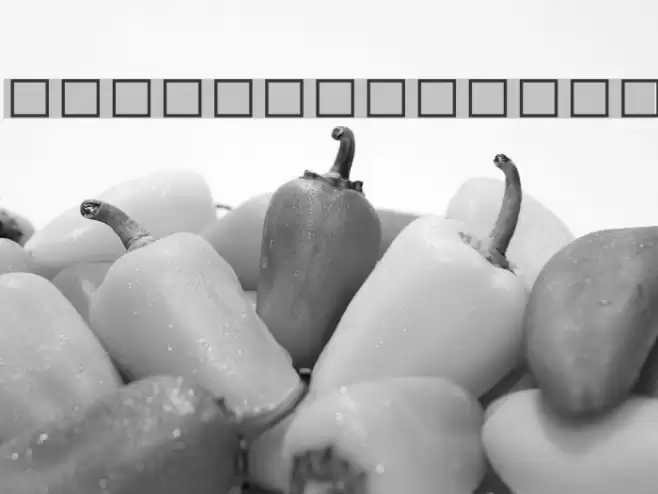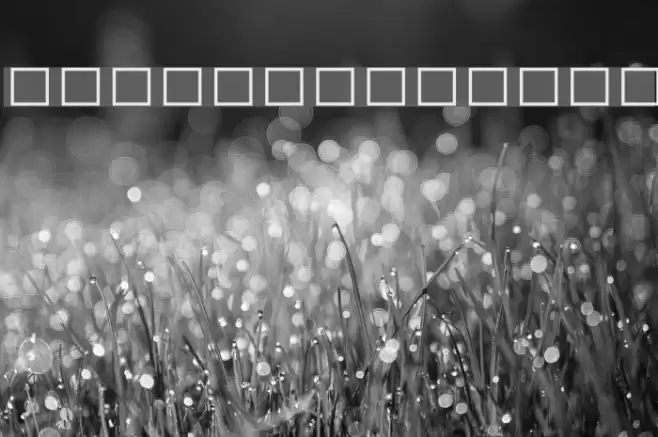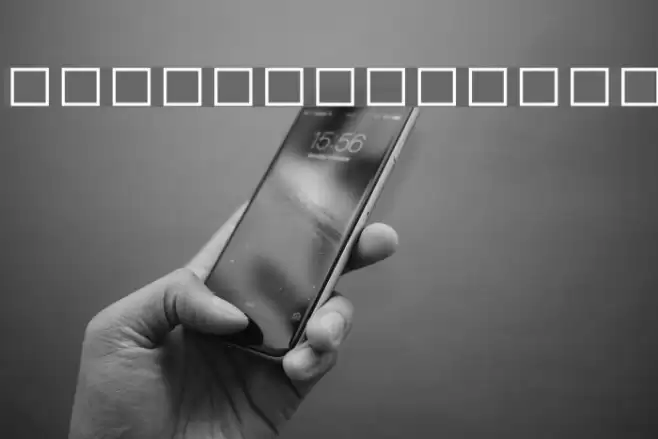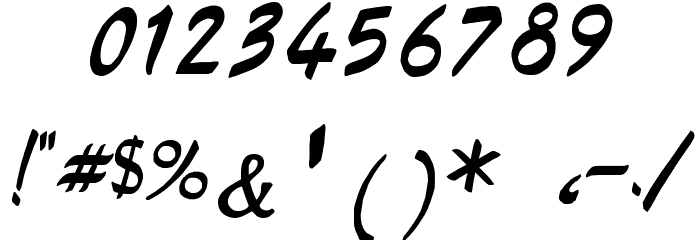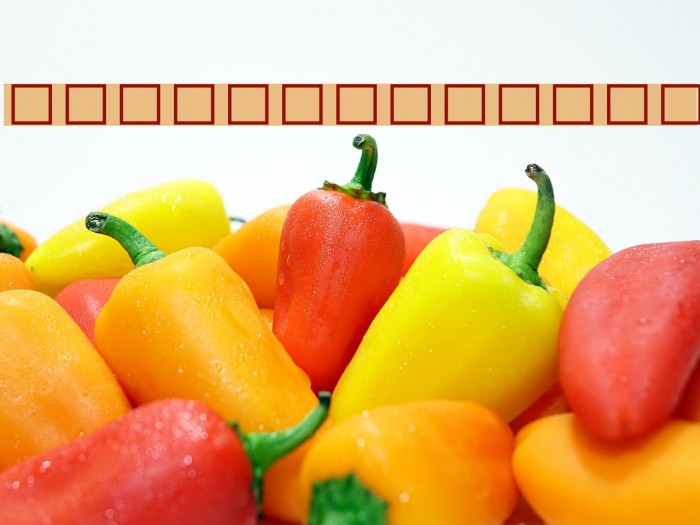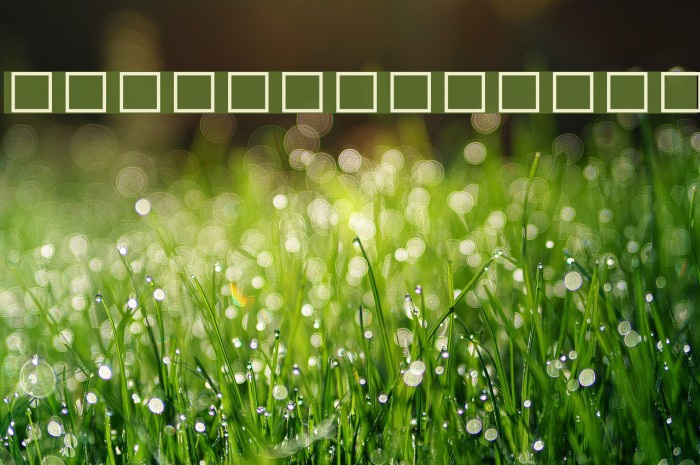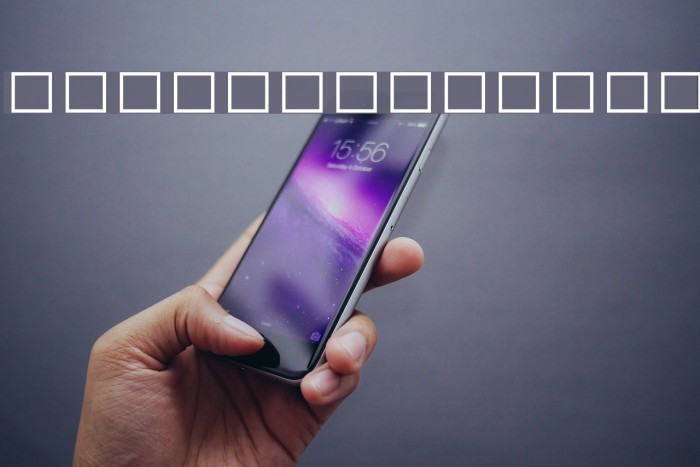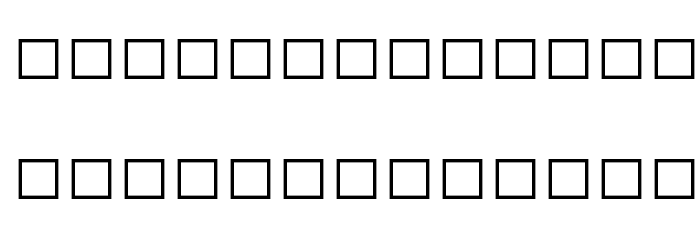
Mv GroupX Avas Akuru Font
Mv GroupX Avas Akuru Description
This font features a playful, handwritten style with a casual and informal appearance. The characters are slightly slanted, giving a dynamic and lively feel. The numerals and special characters maintain the same handwritten aesthetic, with smooth curves and varying stroke thicknesses that add to the font's charm. The overall look is friendly and approachable, making it suitable for creative and informal projects.
A playful, handwritten font with a casual and dynamic style from Uncategorized fonts.
- Proposed Projects: Ideal for greeting cards, invitations, personal branding, and creative social media graphics.
- Overall Style: Casual, Playful
- Use Case: Logos, Invitations, Social Media Graphics